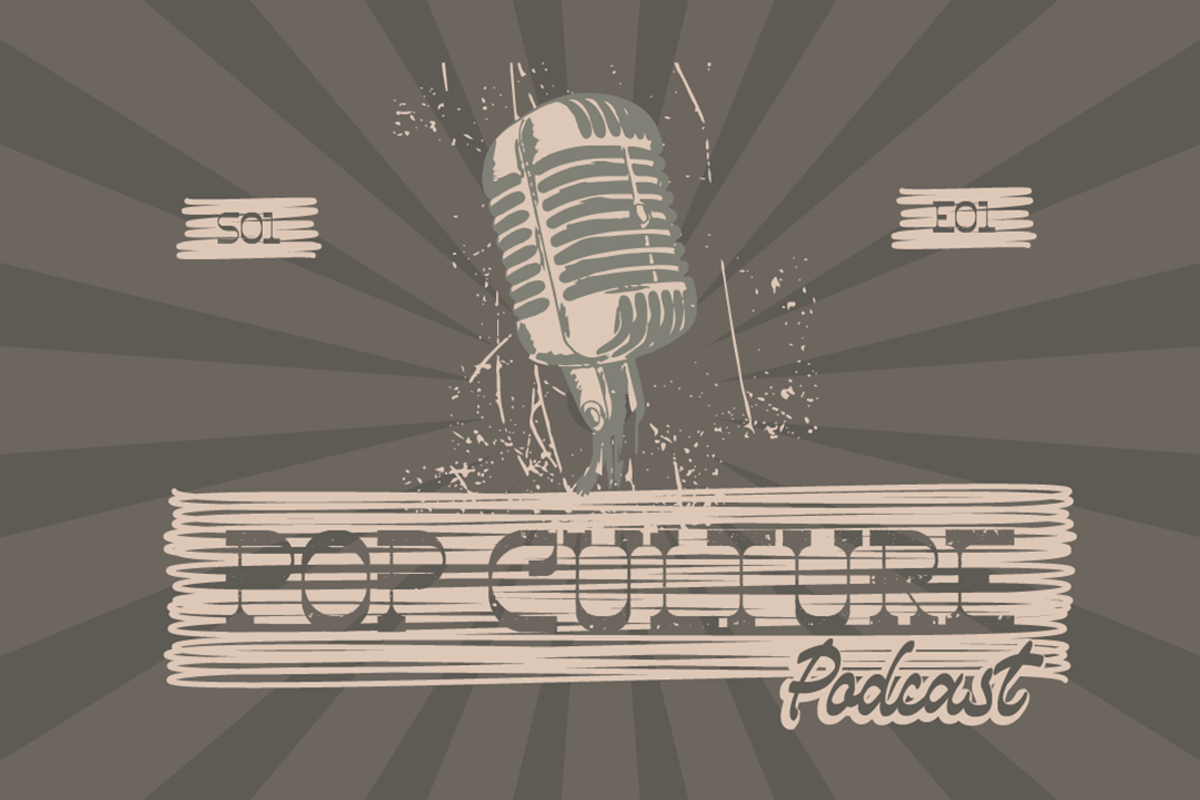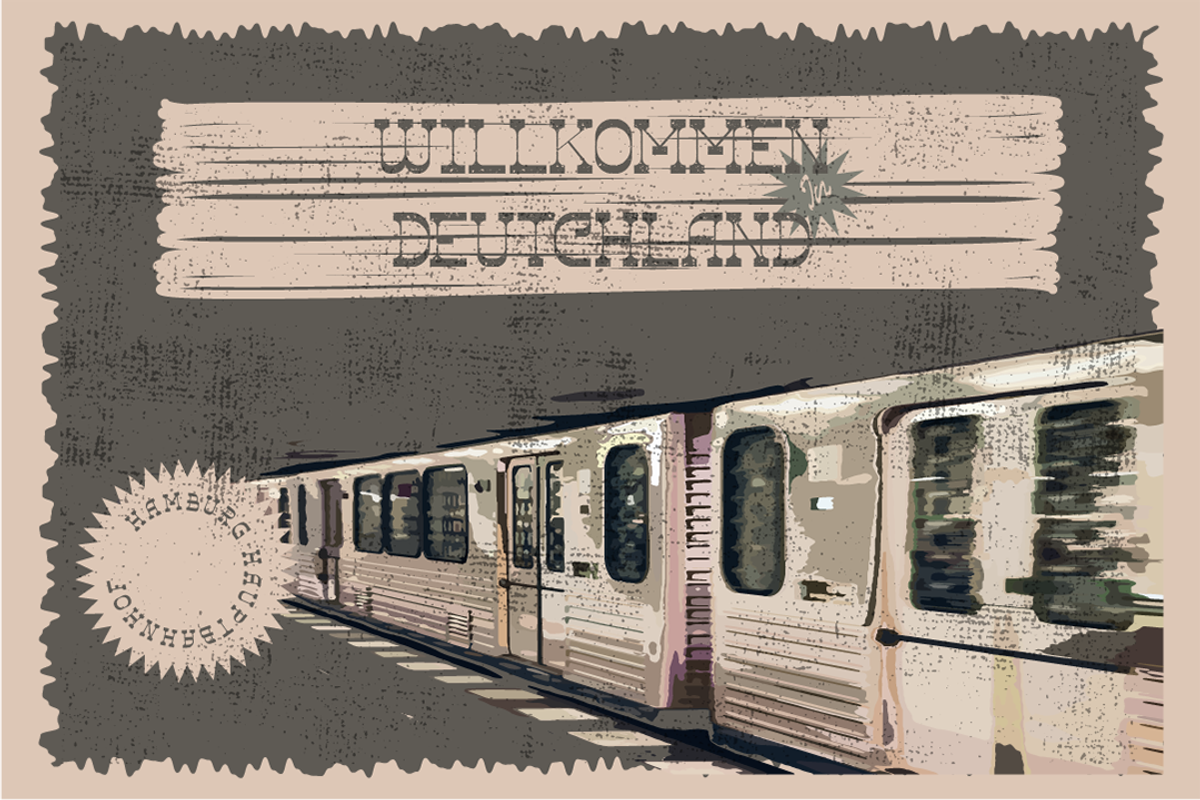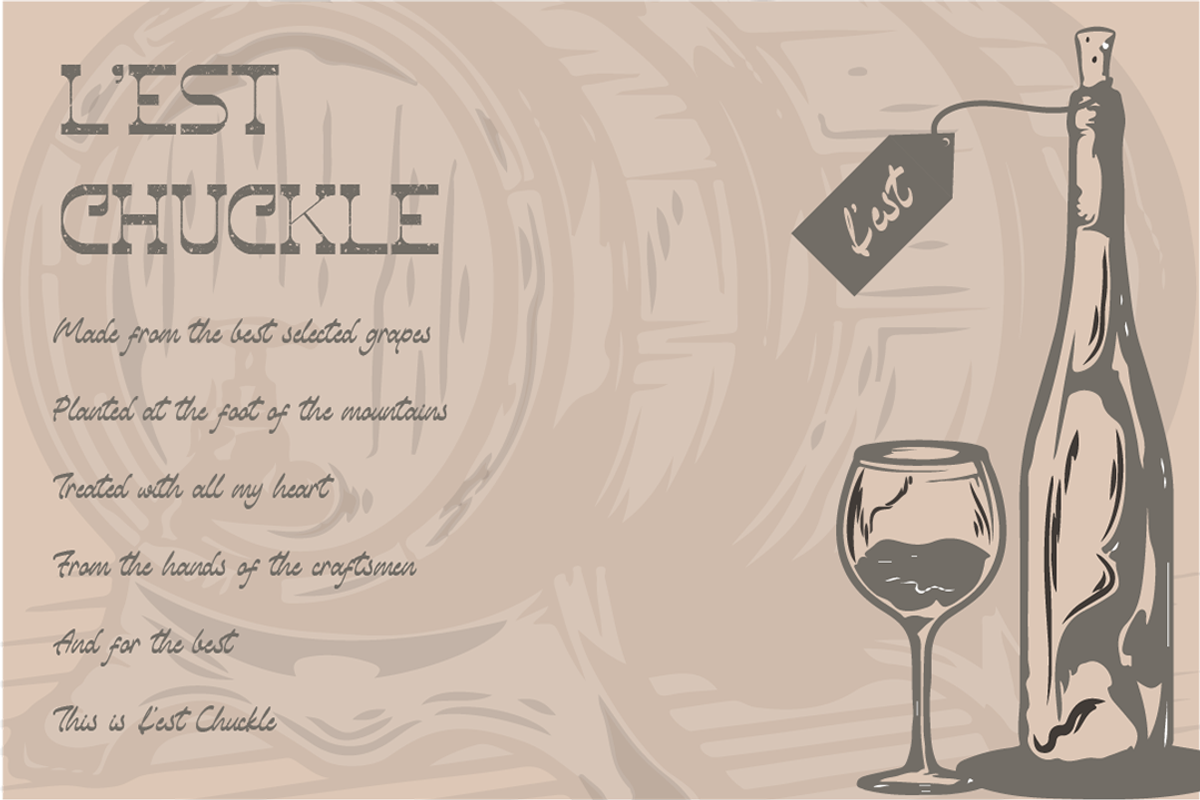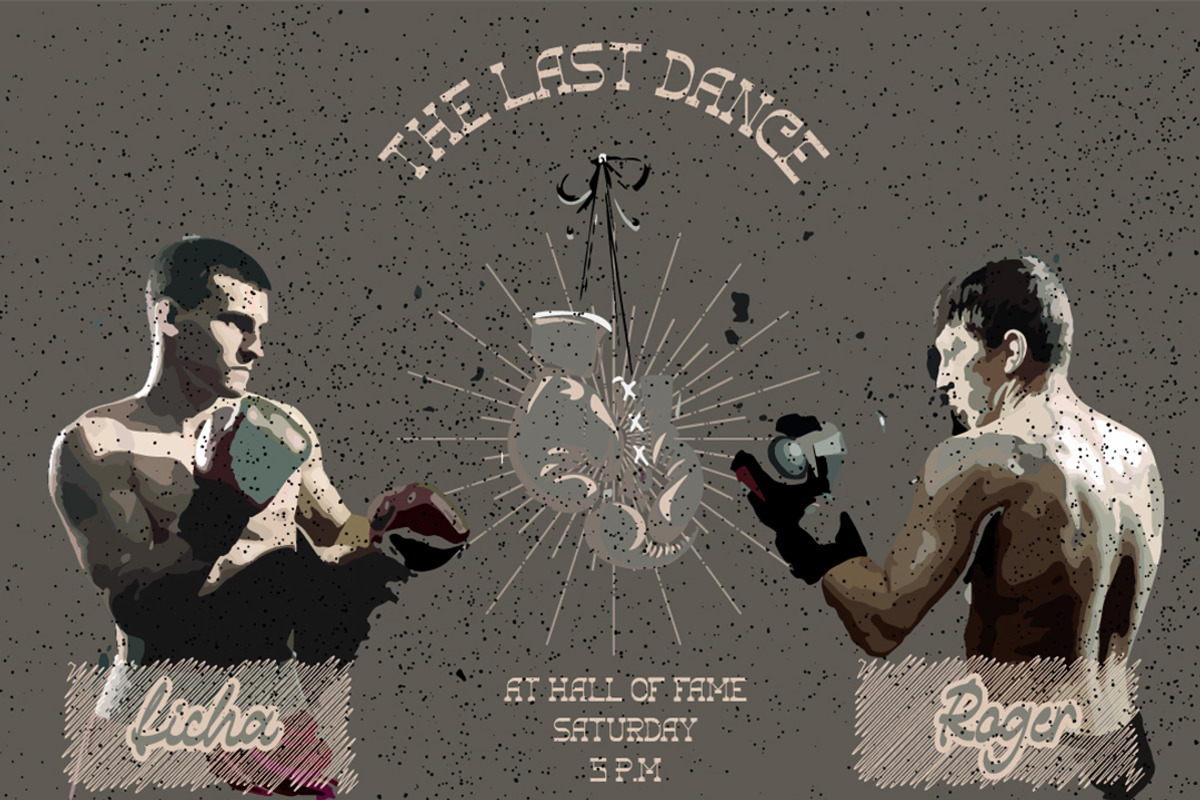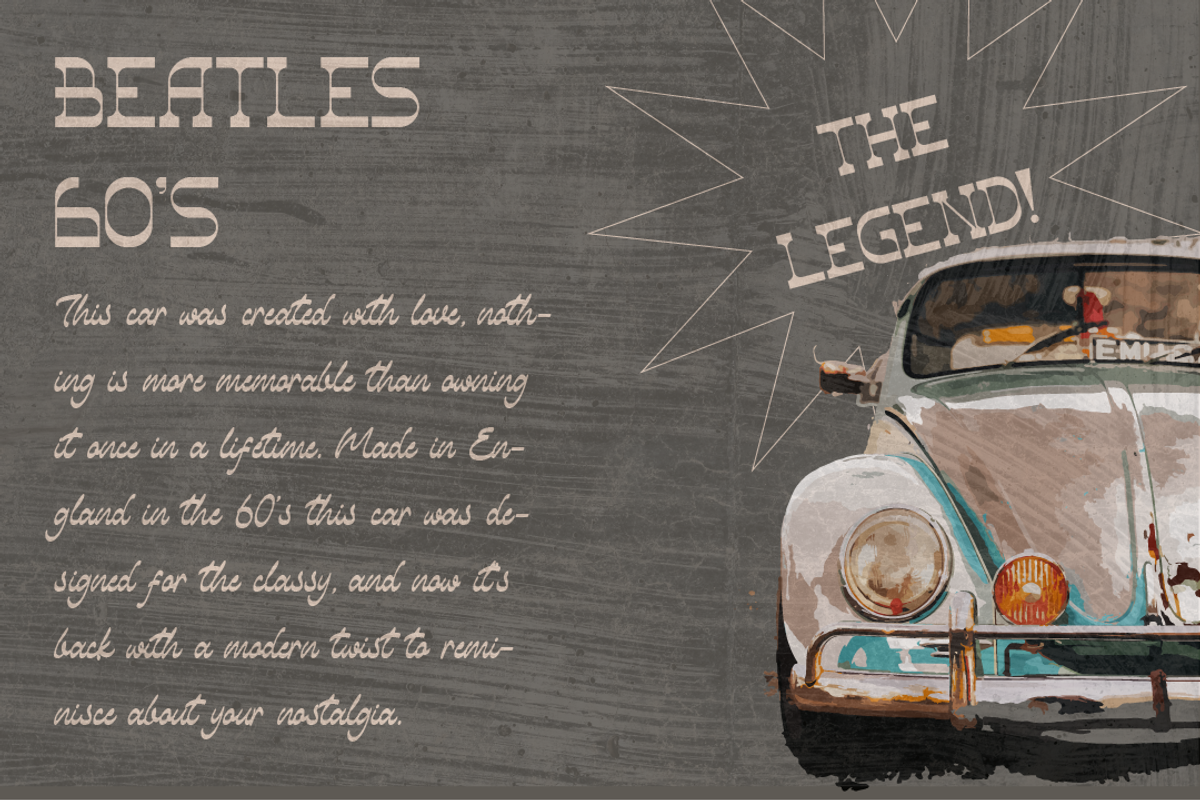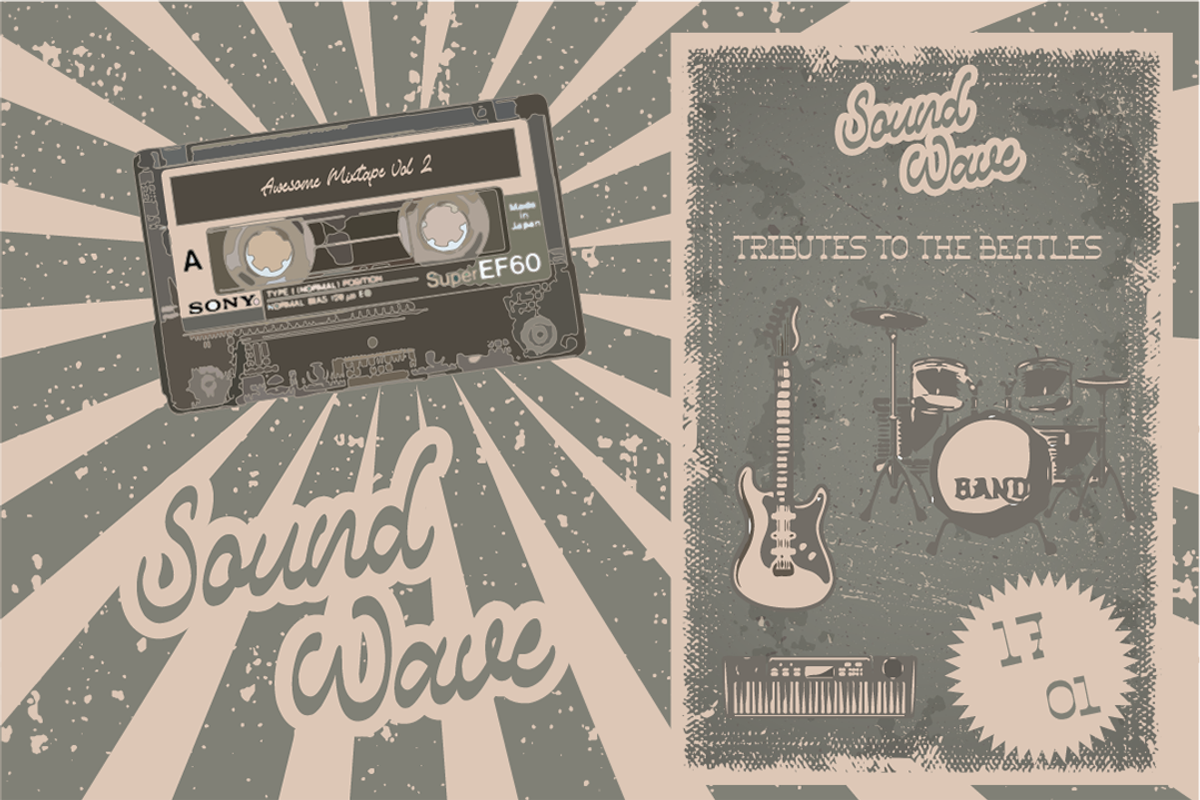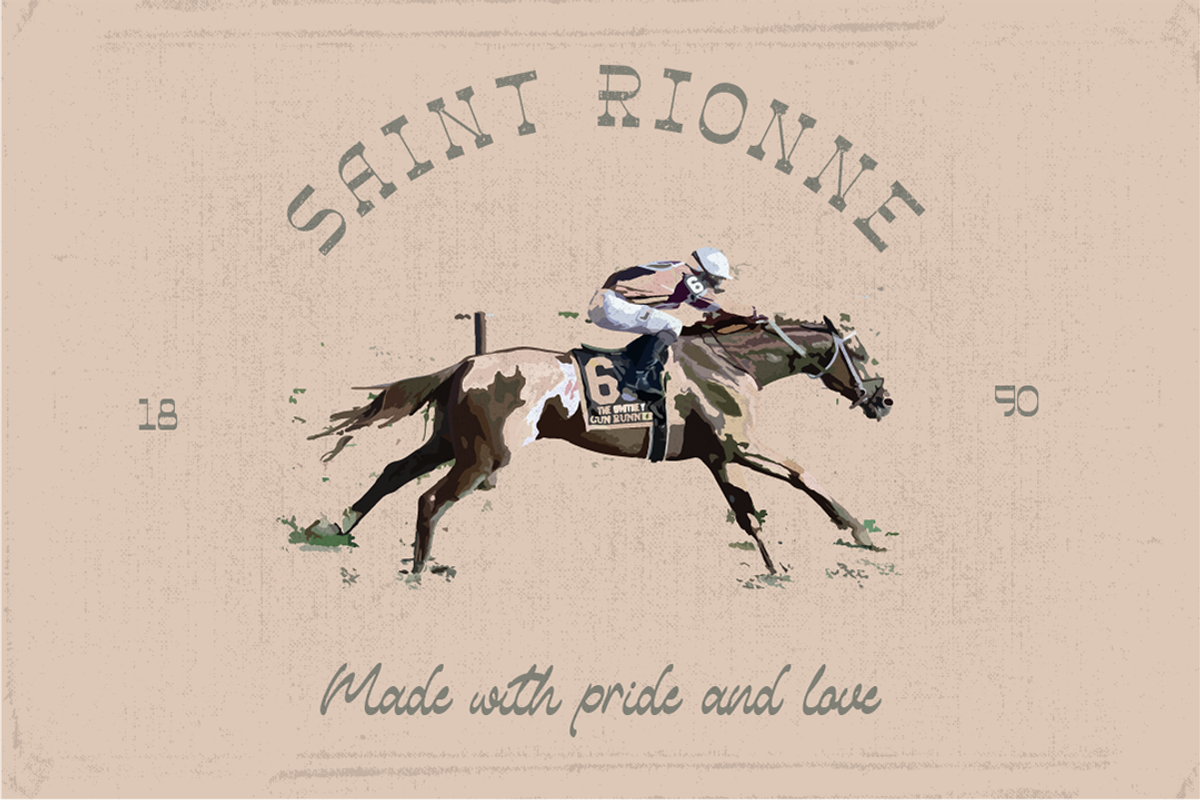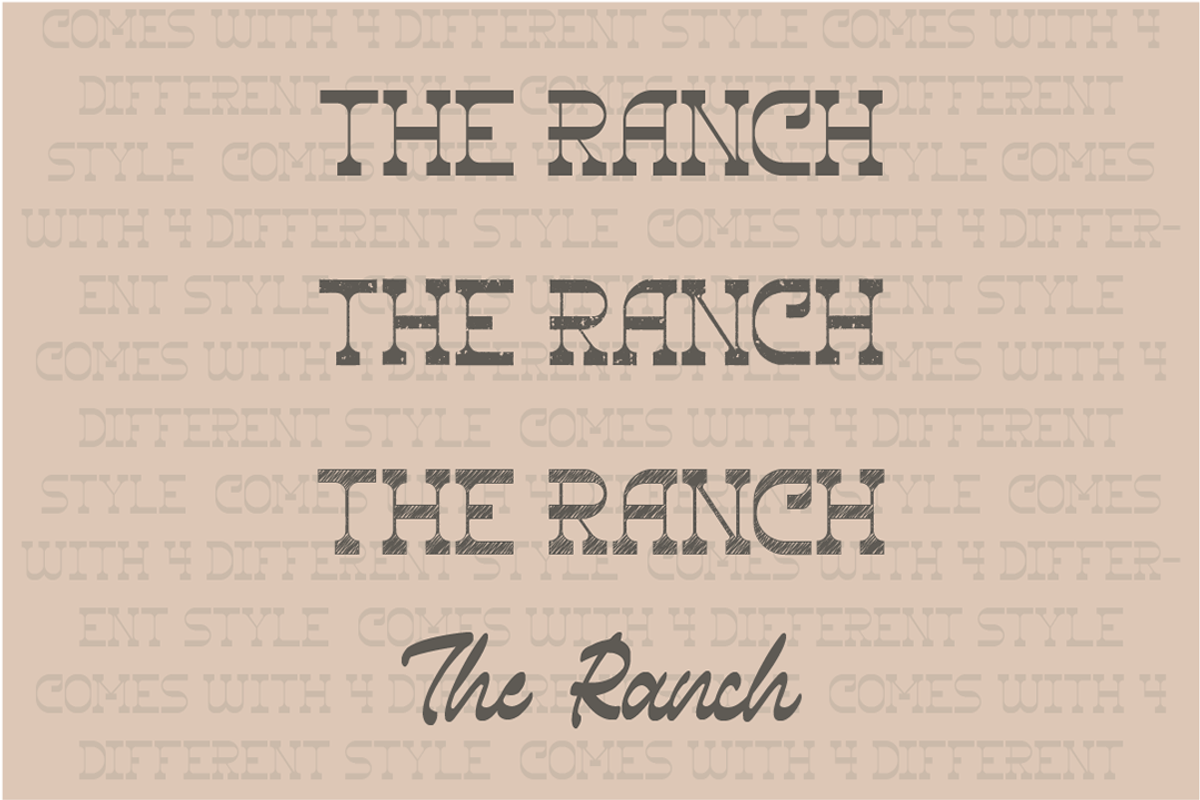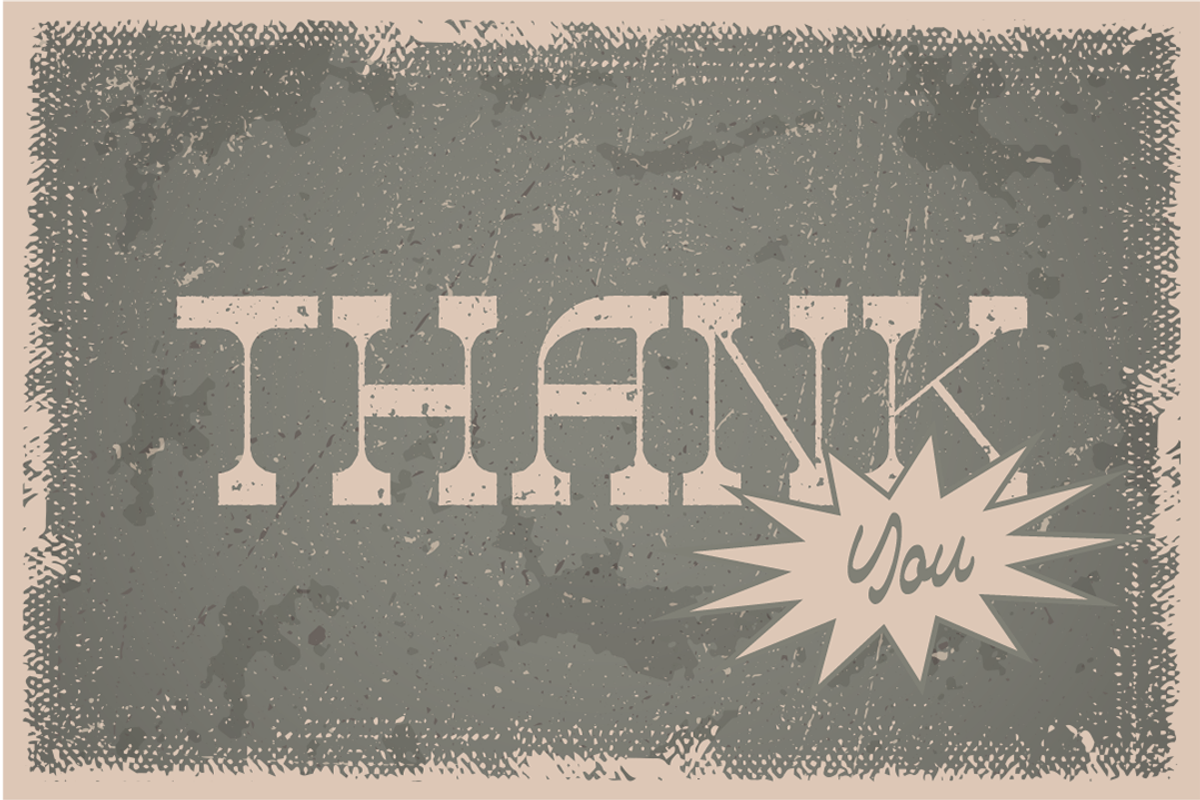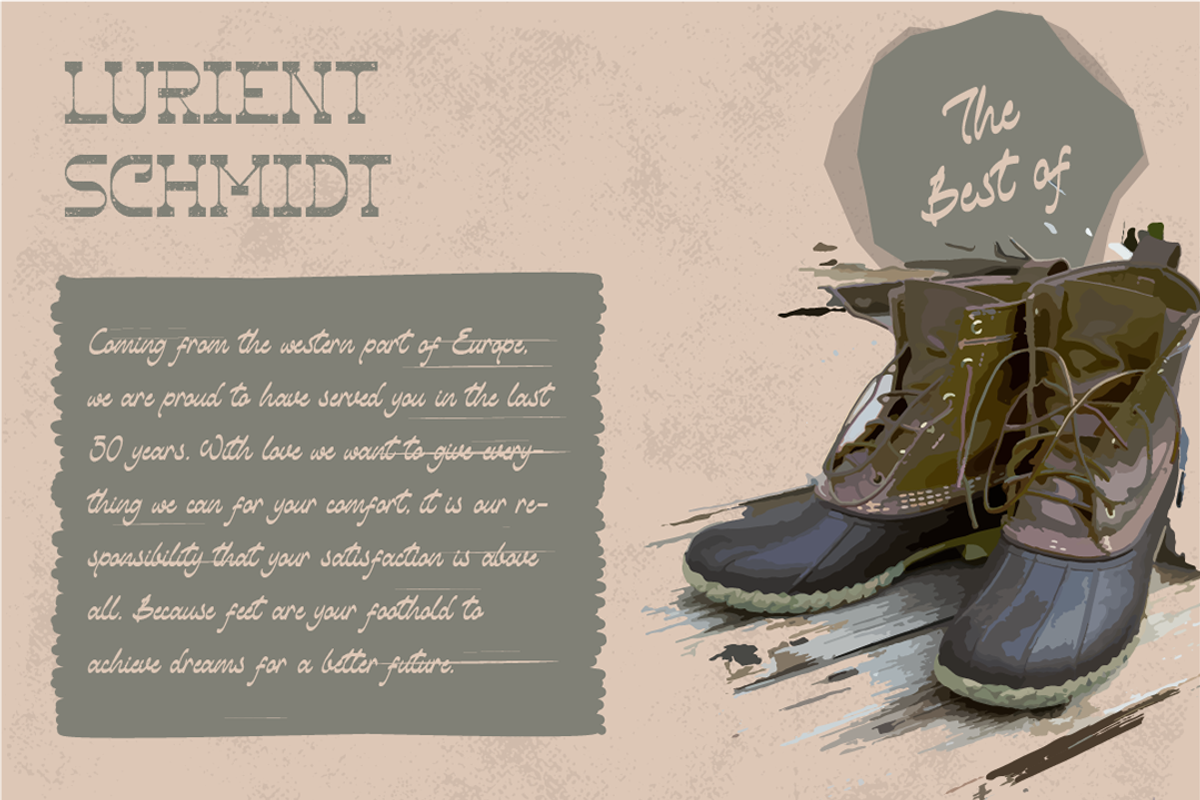
The Ranch | Vintage Font Duo
Hi! Introducing my newest font called The Ranch.
The Ranch is a retro and western-looking font duo (display and script). This bold, unique, and vintage font can easily become your favorite. It can be used for books, magazine covers, social media posts, invitations, and so much more! So add this to your creations and take your designs to the next level!